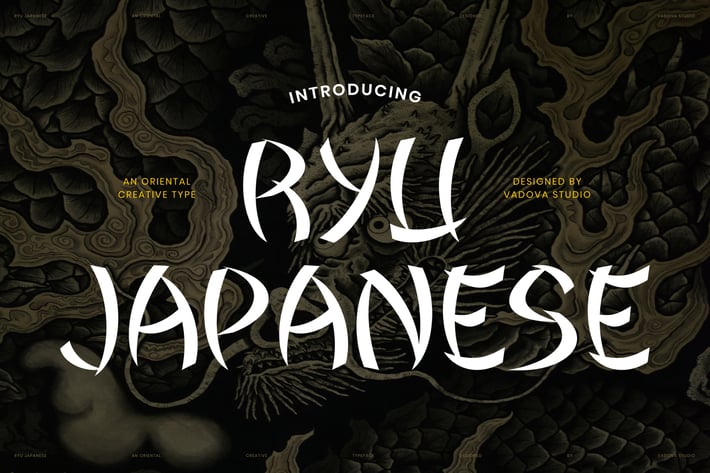
Ryu Japanese Creative Font
RYU JAPANESE is an oriental display font inspired by traditional Japanese brush lettering and expressive hand-drawn strokes. Its dynamic curves, sharp terminals, and organic rhythm create a powerful visual identity rooted in cultural heritage. The letterforms feel energetic and dramatic while remaining legible and balanced for display use. RYU JAPANESE delivers a bold artistic presence that brings authenticity and character to modern design projects.
Suitable For Japanese-themed branding, cultural and traditional projects, posters, movie and game titles, logos, album covers, restaurant branding, tattoo designs, fashion graphics, event visuals, packaging, and creative projects that require a strong oriental and artistic identity with expressive brush character.